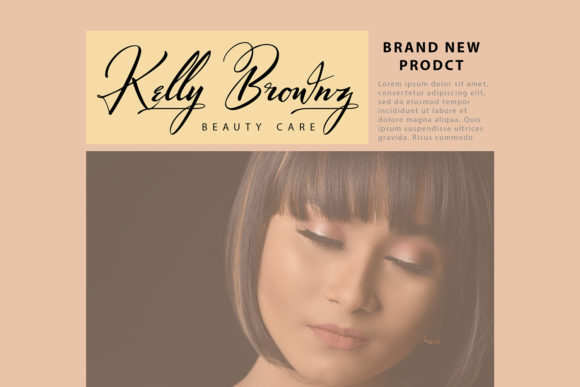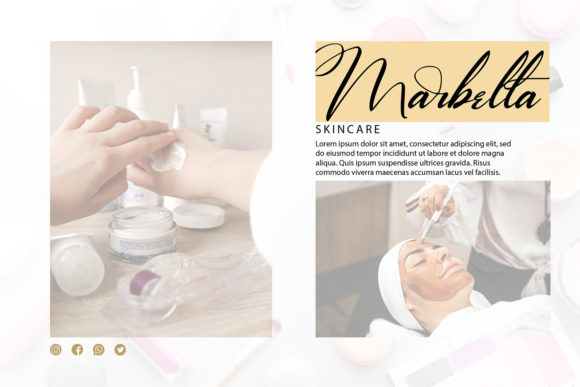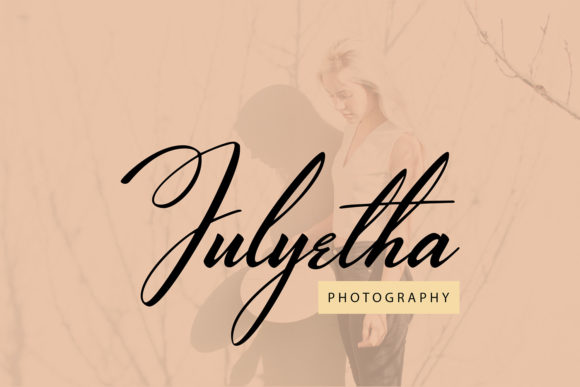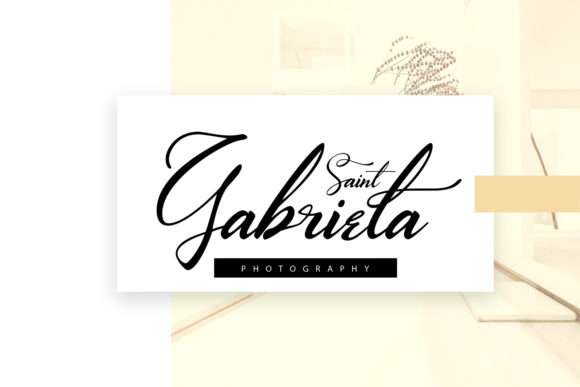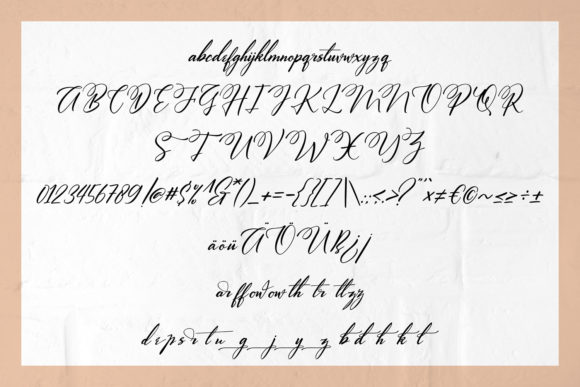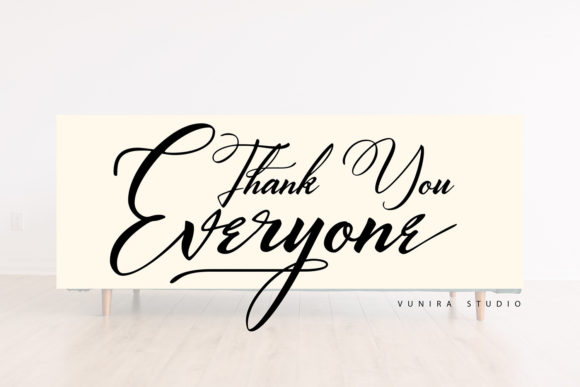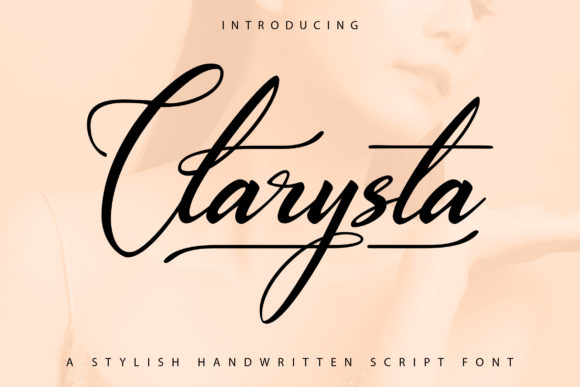
Introducing Clarystha Font: Elevate Your Designs with Elegance and Sophistication
In the world of typography, fonts play a crucial role in conveying the tone and personality of a design. For designers and crafters seeking to add a touch of elegance and sophistication to their work, Clarystha Font is an exceptional choice. This stylish and incredibly elegant script font is perfect for a variety of design projects, including wedding invitations, thank you cards, quotes, greeting cards, logos, business cards, and more.
The Beauty of Clarystha Font
Clarystha Font boasts a unique and captivating aesthetic that instantly elevates any design. Its flowing script style, characterized by beautiful swashes and delicate connections, exudes a sense of luxury and refinement. The font’s elegant appearance makes it an ideal choice for designs that require a touch of sophistication, such as wedding-related materials, high-end branding, and formal event invitations.
One of the standout features of Clarystha Font is its versatility. This font can be used across a wide range of design projects, from digital to print. Whether you’re creating:
- Wedding invitations that set the tone for a fairytale-like celebration
- Thank you cards that express gratitude with style
- Quotes that inspire and motivate
- Greeting cards for special occasions
- Logos that represent a brand’s values and personality
- Business cards that make a lasting impression
Clarystha Font is sure to add a touch of elegance and sophistication. Its flexibility and adaptability make it a valuable asset for designers and crafters who want to create visually stunning materials.
Why Choose Clarystha Font?
With so many fonts available, why should you choose Clarystha Font for your design projects? Here are just a few compelling reasons:
- Unique and distinctive: Clarystha Font stands out from more traditional fonts, offering a fresh and modern take on script typography.
- Elegant and sophisticated: This font’s refined aesthetic makes it perfect for designs that require a touch of luxury and refinement.
- Highly versatile: Clarystha Font can be used across a wide range of design projects, from digital to print.
- User-friendly: This font is easy to read and works well in various sizes, making it a practical choice for designers and crafters.
Tips for Using Clarystha Font
To get the most out of Clarystha Font, here are a few tips to keep in mind:
- Pair with complementary fonts: Combine Clarystha Font with sans-serif fonts for a striking contrast that adds visual interest to your design.
- Experiment with colors: Try pairing Clarystha Font with different colors to create a unique and eye-catching effect.
- Pay attention to spacing: Make sure to leave sufficient spacing between lines and words to maintain clarity and readability.
Clarystha Font is a stylish and elegant script font that can elevate any design project. Its versatility, unique aesthetic, and user-friendly nature make it an excellent choice for designers and crafters seeking to add a touch of sophistication and refinement to their work. Whether you’re creating wedding invitations, logos, or greeting cards, Clarystha Font is sure to impress. So why wait? Discover the beauty of Clarystha Font and take your designs to the next level.